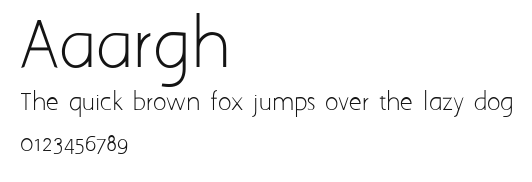
• Font Name: Aaargh
• Full Font Name: Aaargh Normal
• Designer: Tup Wanders
About Aaargh.ttf
Aaargh.ttf is a modern, elegant sans-serif font designed for ultimate readability and visual harmony. Perfect for branding, headlines, web design, and print materials.